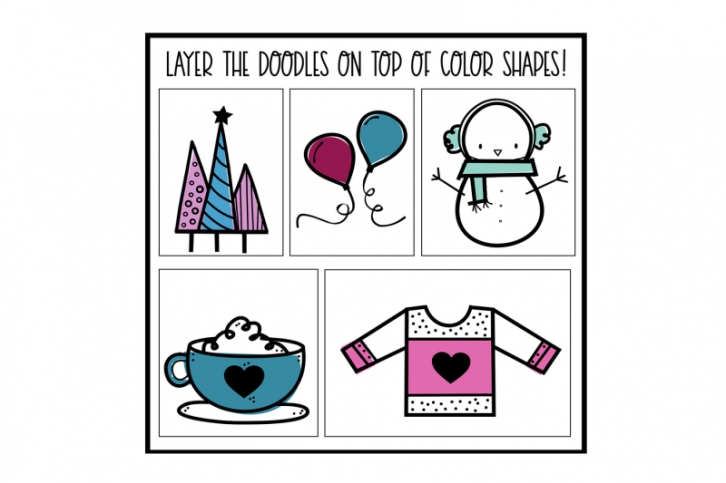
Winter Wishes - A Winter Doodles Font Download
Winter Wishes is a doodle (dingbat) font.
It includes 52 hand-drawn, Winter/Christmas/New Years doodles.
Instead of a letter showing up, a small doodle will!
You can resize the doodle, color the doodle and add text to the doodles!